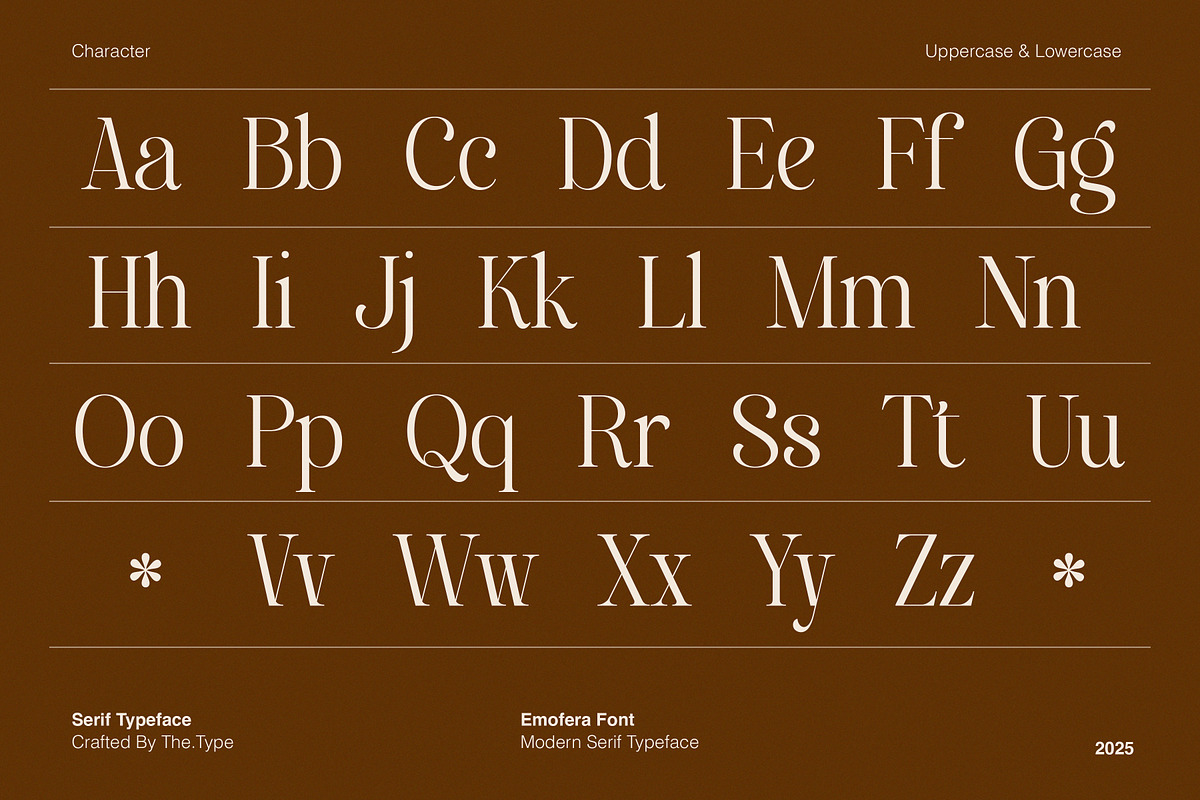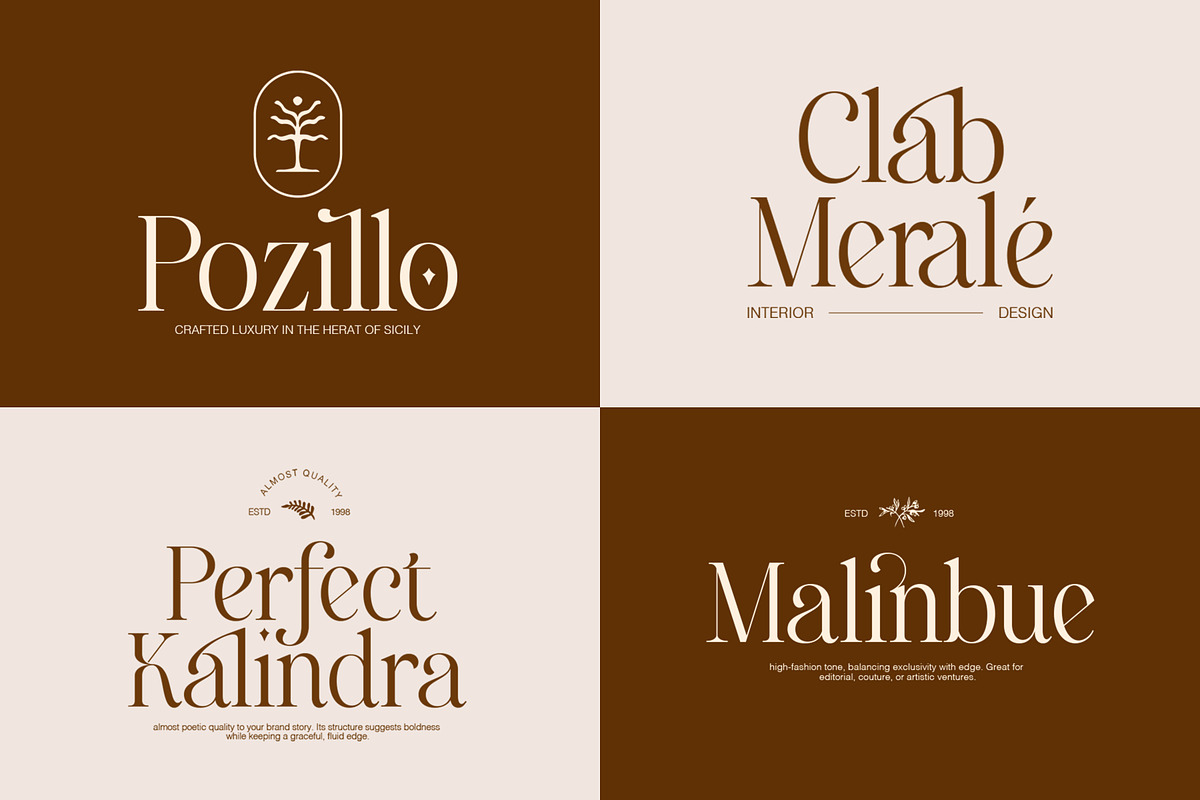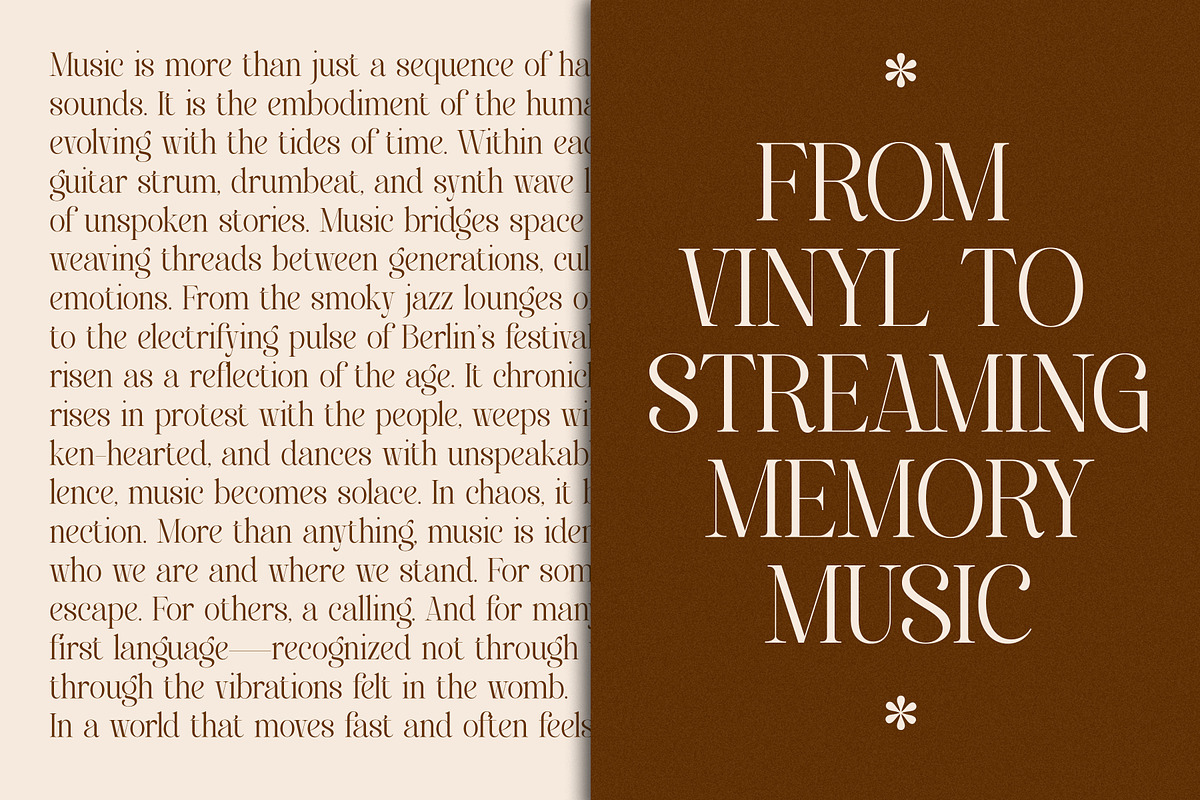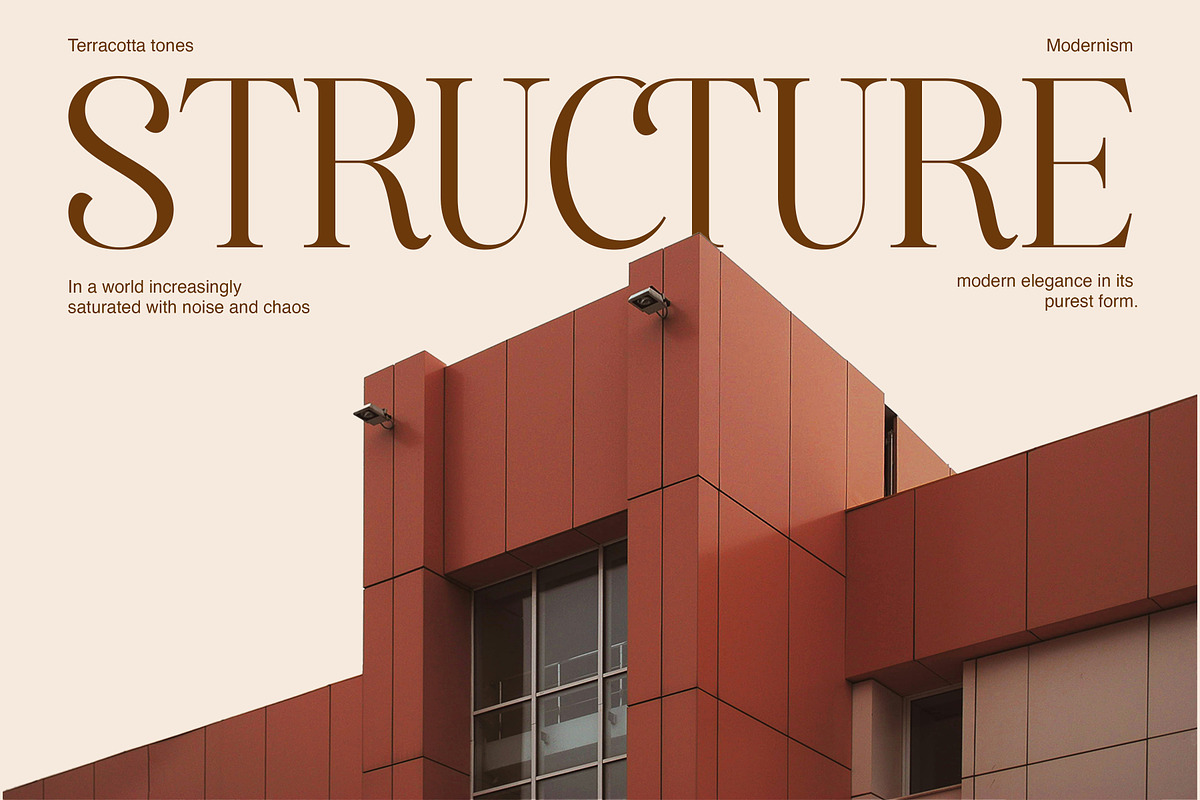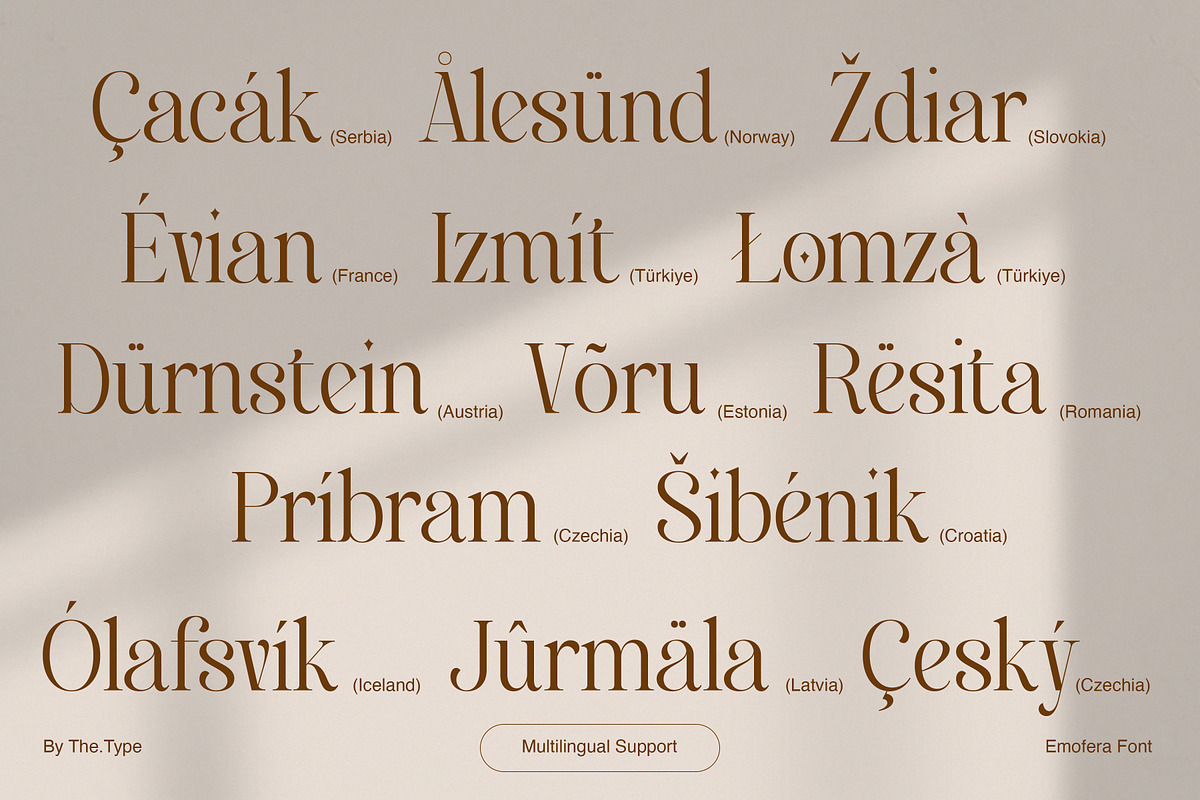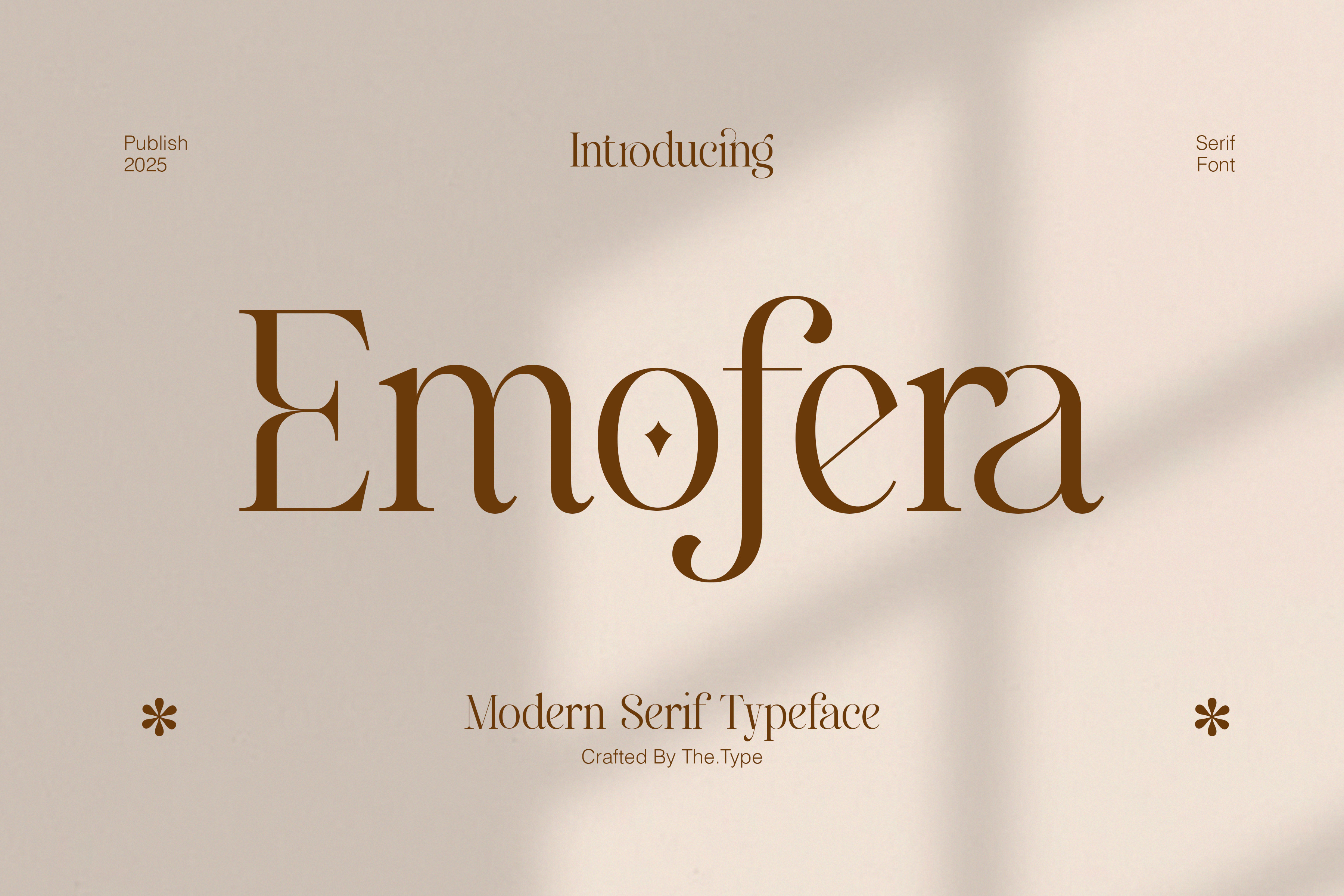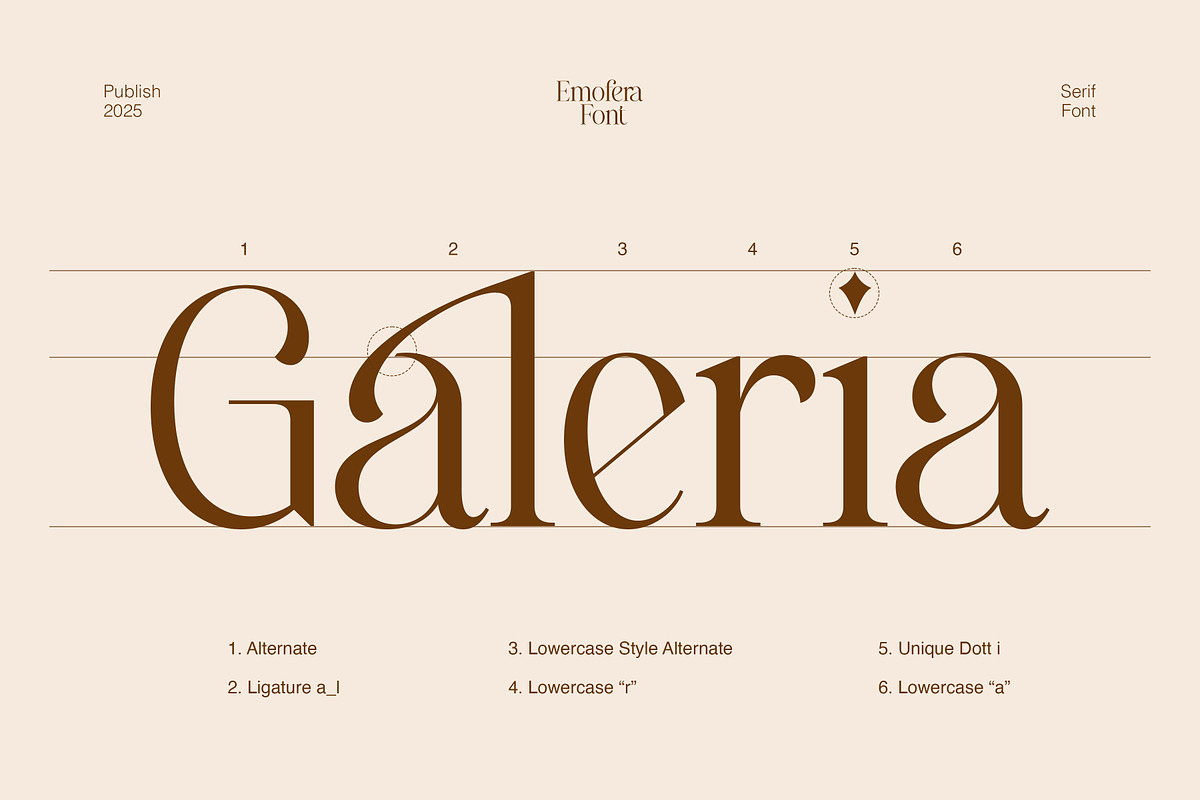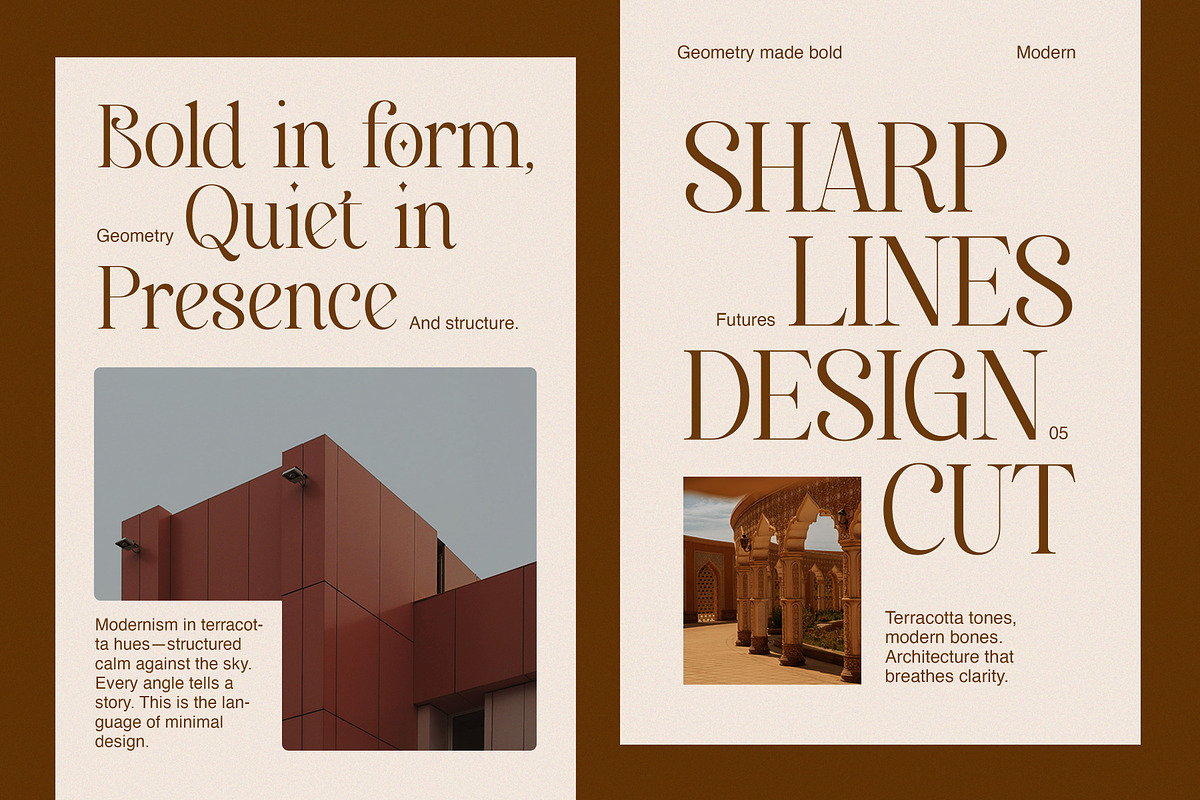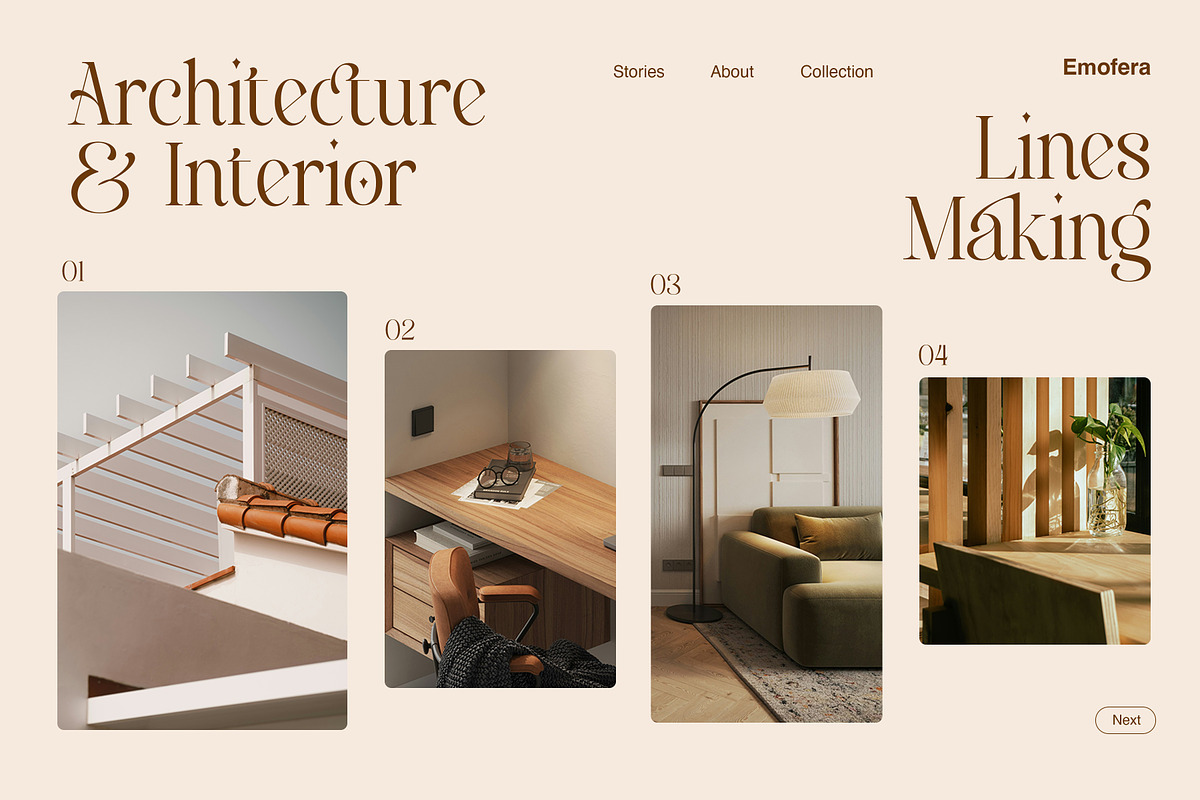
Emofera | Modern Serif Font
Emofera - a modern serif font inspired by the Beauty line. This font can look more classic (conservative) display serif with stylish alternate, which is perfect for texts. So same he can be more expressive, playing and more modern with alternative substitutes and ligatures, try to play with them and you will get the uniqueness in your project.
Following multilingual support:
ÀÁÂÃÄÅĄÇĆÈÉÊËĘÌÍÎÏÐÑŃŁÒÓÔÕÖØÙÚÛÜŚŠŸÝŹŻŽßàáâãäåçèéêëìíîïðñòóôõöøùúûüýÿąćęłńśšźżž